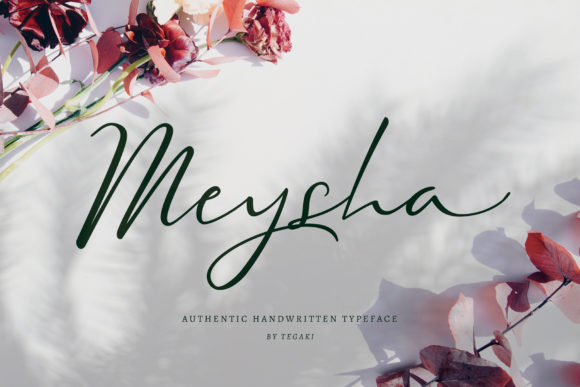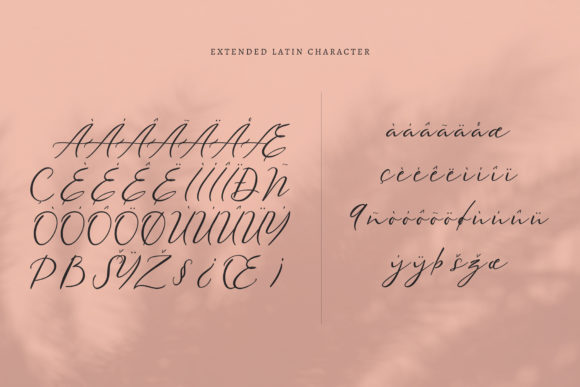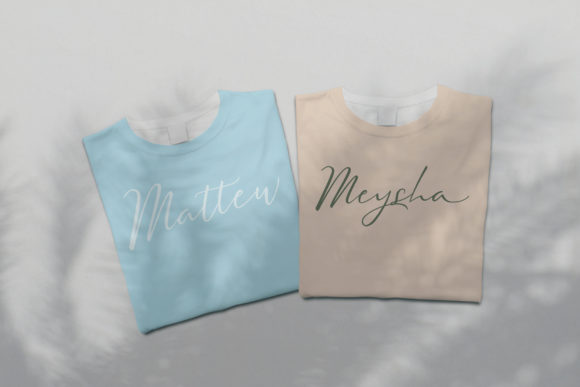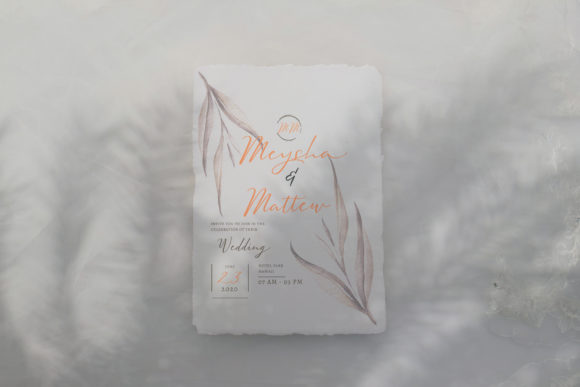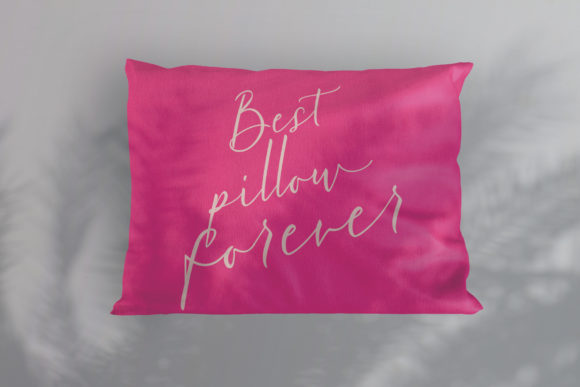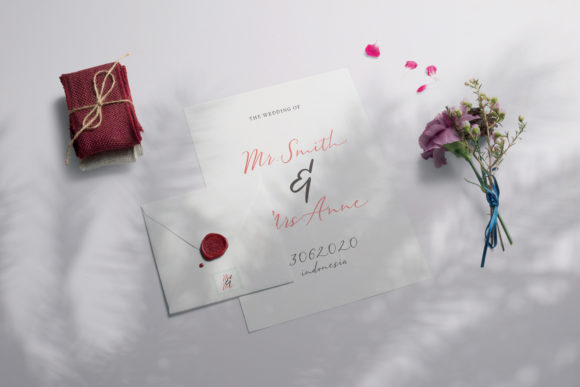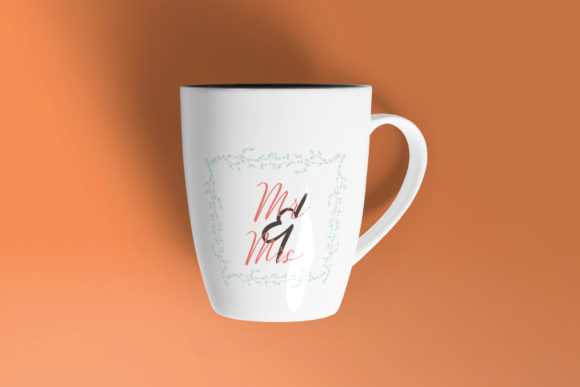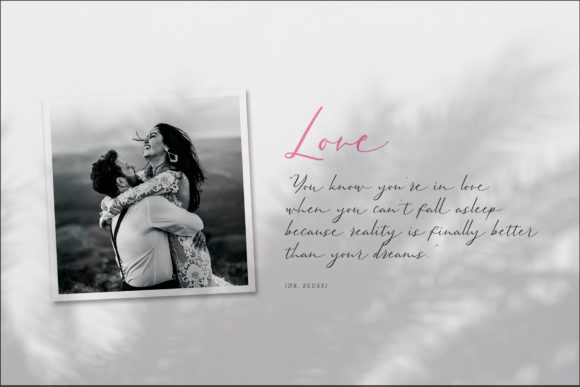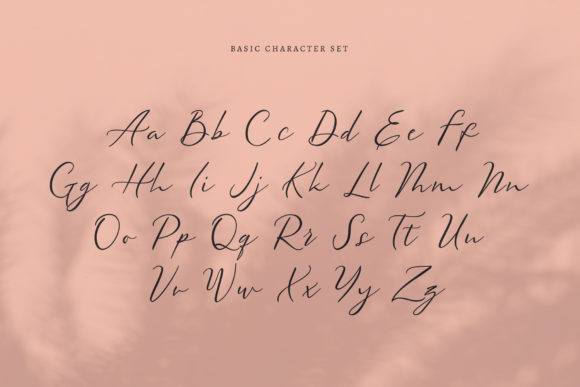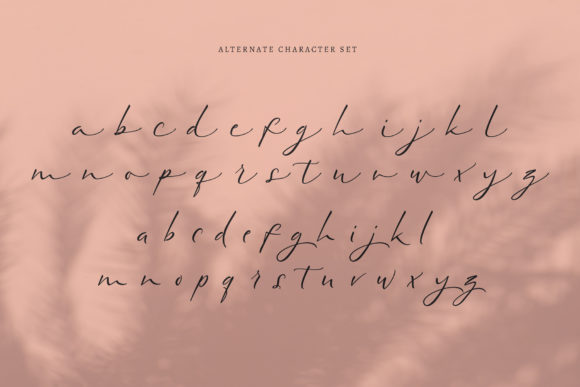
Meysha Font
About Meysha Font
Meysha is a stylish script font with an authentic handwritten feel. It features a varying baseline, smooth lines, gorgeous glyphs and stunning alternates.
It will elevate a wide range of design projects to the highest level, be it branding, headings, wedding designs, invitations, signatures, logos, labels, and much more!